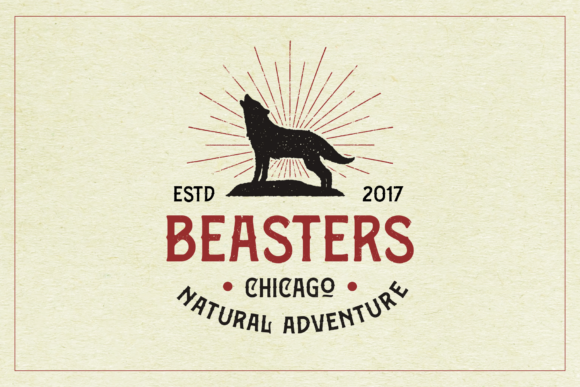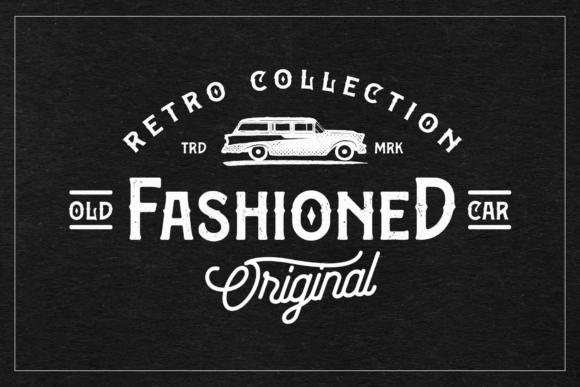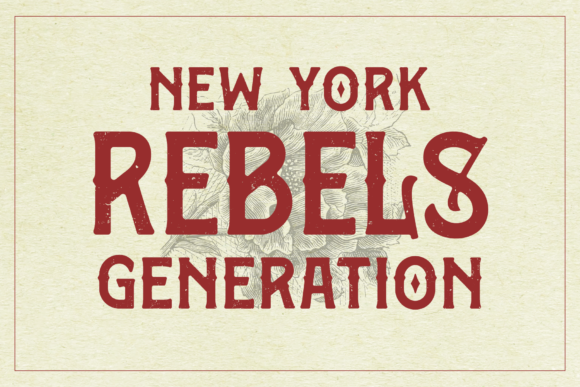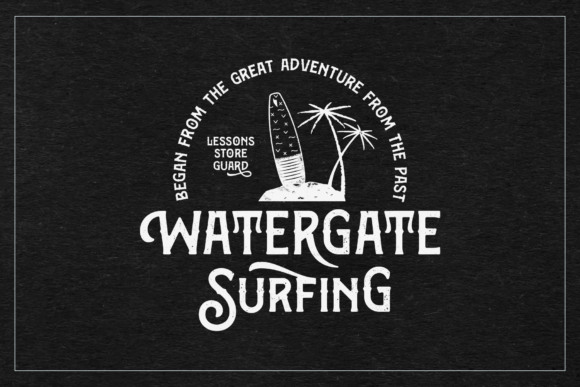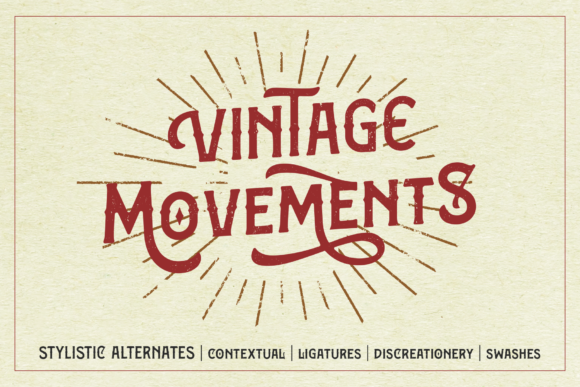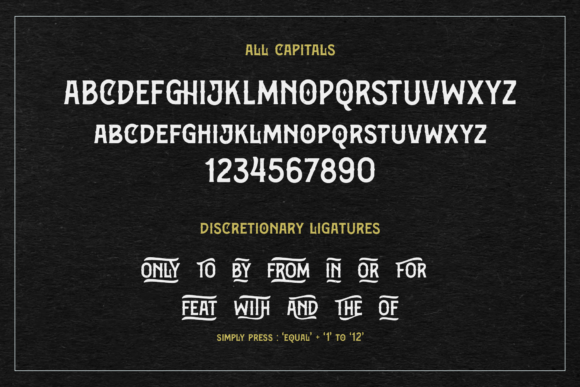
Bargers Distressed Font: A Timeless Typeface for Designers and Crafters
Are you looking for a font that can add a touch of nostalgia and rugged charm to your designs? Look no further than the Bargers Distressed Font. This solid typeface boasts bold curves and a distressed feel, making it the perfect choice for designers and crafters who want to evoke the style of old printing.
The Characteristics of Bargers Distressed Font
Bargers is a unique typeface that combines the elegance of traditional printing with the ruggedness of distressed fonts. Its bold curves and sturdy lines give it a solid feel, while its worn and weathered texture adds a touch of vintage charm. This font is perfect for designs that require a strong, attention-grabbing presence, such as:
- Headings and titles for posters, flyers, and brochures
- Logos and branding for companies that want to convey a sense of ruggedness and reliability
- Signage and display text for craft fairs, markets, and other events
- Packaging and labeling for products that want to stand out on store shelves
The Benefits of Using Bargers Distressed Font
So why choose Bargers Distressed Font for your design projects? Here are just a few benefits:
- Instant recognition: The distressed texture and bold curves of Bargers make it instantly recognizable as a unique and eye-catching font.
- Versatility: Bargers can be used for a wide range of design projects, from rustic and country-themed designs to modern and edgy projects.
- Easy to read: Despite its distressed texture, Bargers is surprisingly easy to read, making it perfect for designs that require a clear and concise message.
- Unique style: Bargers has a one-of-a-kind style that will set your designs apart from the crowd.
How to Use Bargers Distressed Font in Your Designs
Using Bargers Distressed Font in your designs is easy. Here are a few tips to get you started:
- Pair it with a simple font: Bargers is a bold and attention-grabbing font, so it’s best to pair it with a simpler font for body text.
- Experiment with colors: Bargers looks great in a range of colors, from earthy tones to bold brights.
- Use it for headings and titles: Bargers is perfect for headings and titles, but it can also be used for short paragraphs of text.
- Add texture and effects: Consider adding texture or effects to your Bargers text to give it an extra layer of depth and interest.
Bargers Distressed Font is a timeless typeface that is perfect for designers and crafters who want to add a touch of nostalgia and rugged charm to their designs. With its bold curves, distressed texture, and versatility, Bargers is a font that can be used for a wide range of design projects. Whether you’re creating headings and titles, logos and branding, or packaging and labeling, Bargers is a great choice. So why not give it a try and see how it can elevate your designs?